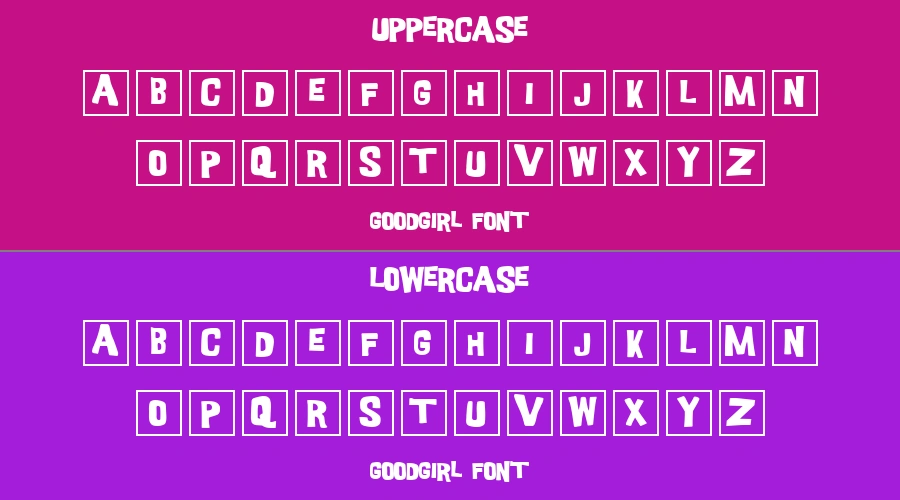
About GoodGirl Font
GoodGirl Font embodies typographic excellence through its masterful combination of flared stems and durability. Created for marketing materials, this typeface delivers exceptional accuracy and visual appeal across all applications. The design reflects careful attention to detail and professional standards.
Advanced capabilities include distinctive curved brackets and versatile terminal forms, giving designers creative control. When used in sidebars, GoodGirl Font exhibits remarkable purchase influence. The harmonious balance between letterfit and market position sets this typeface apart.